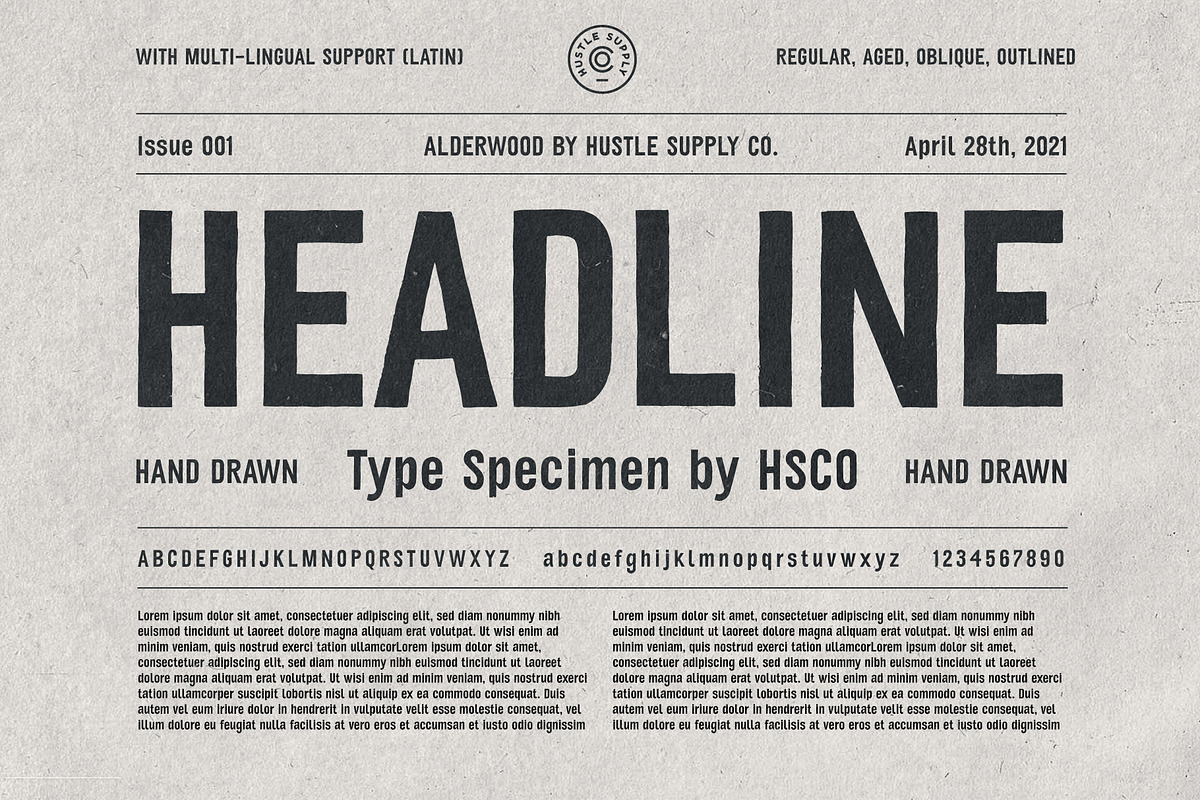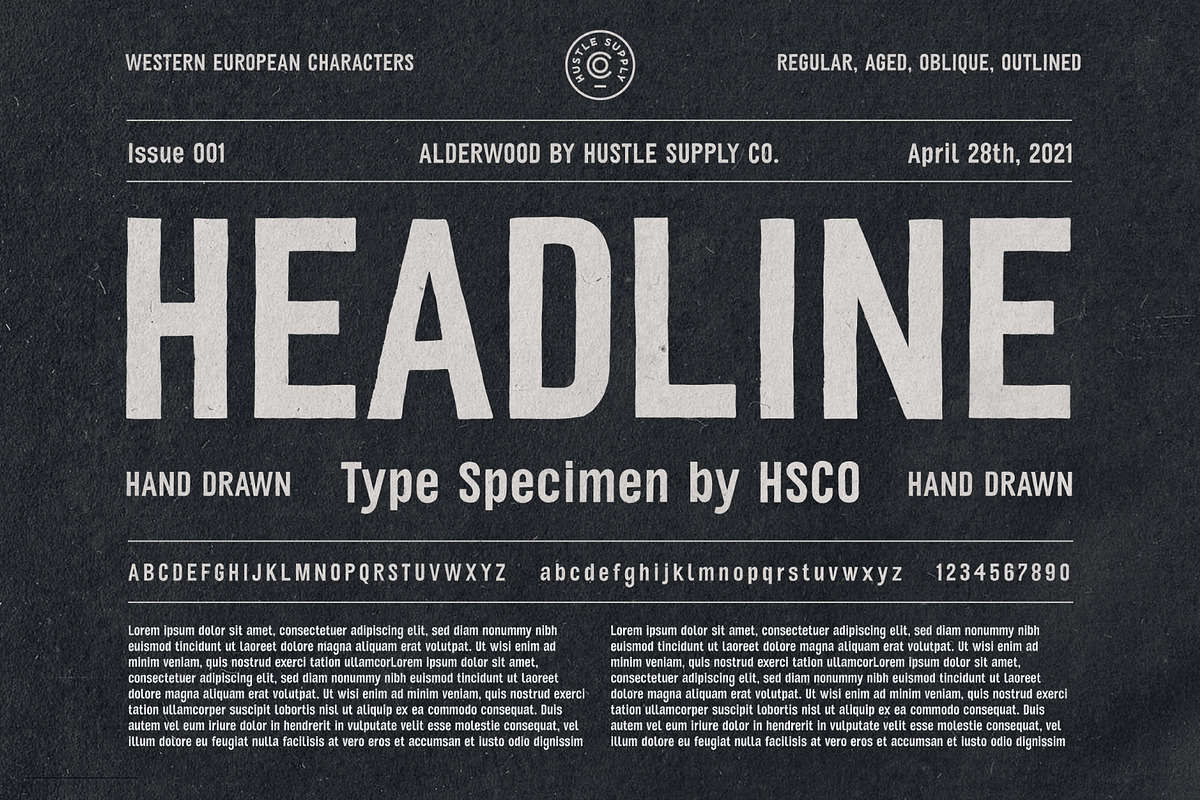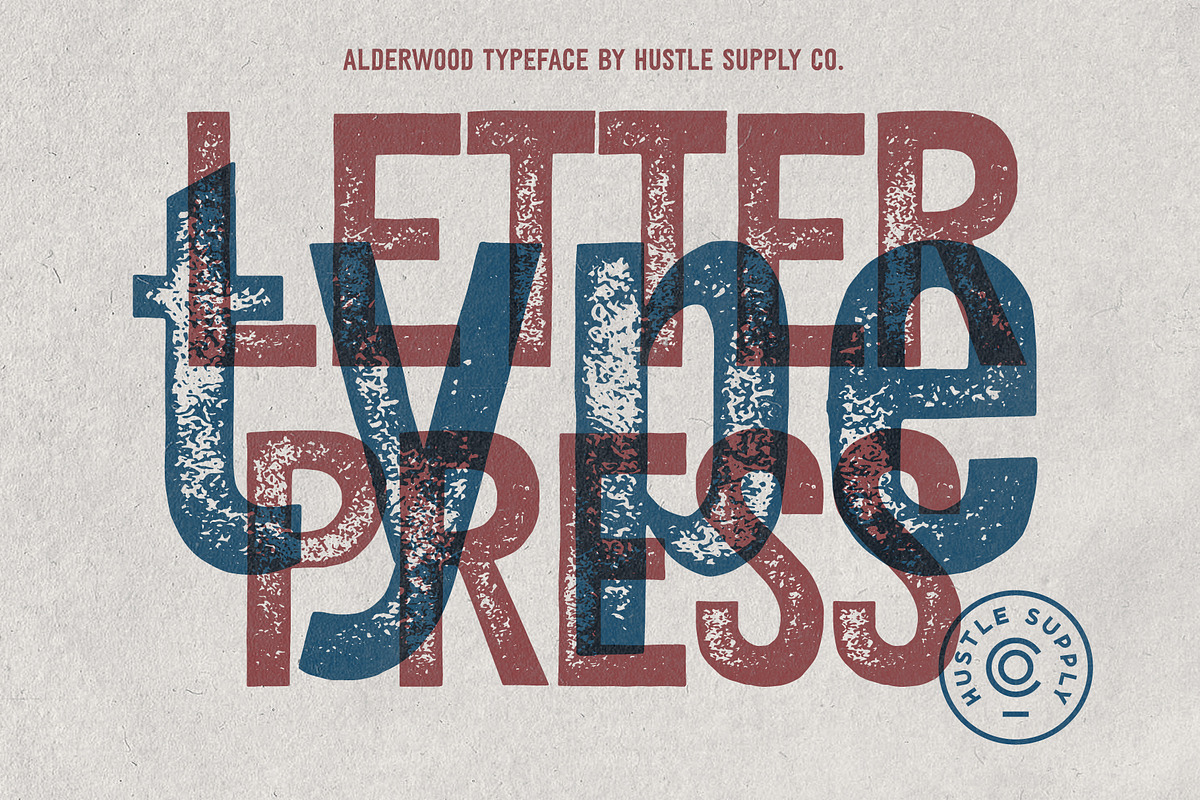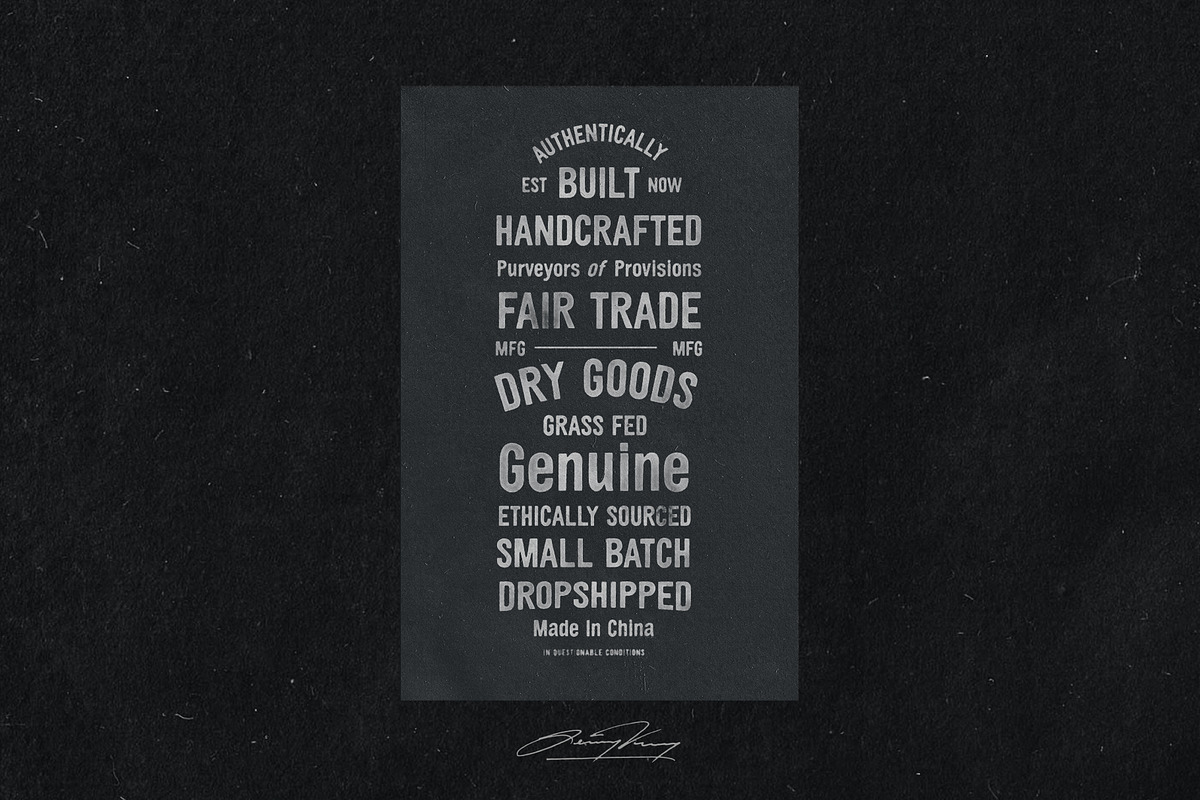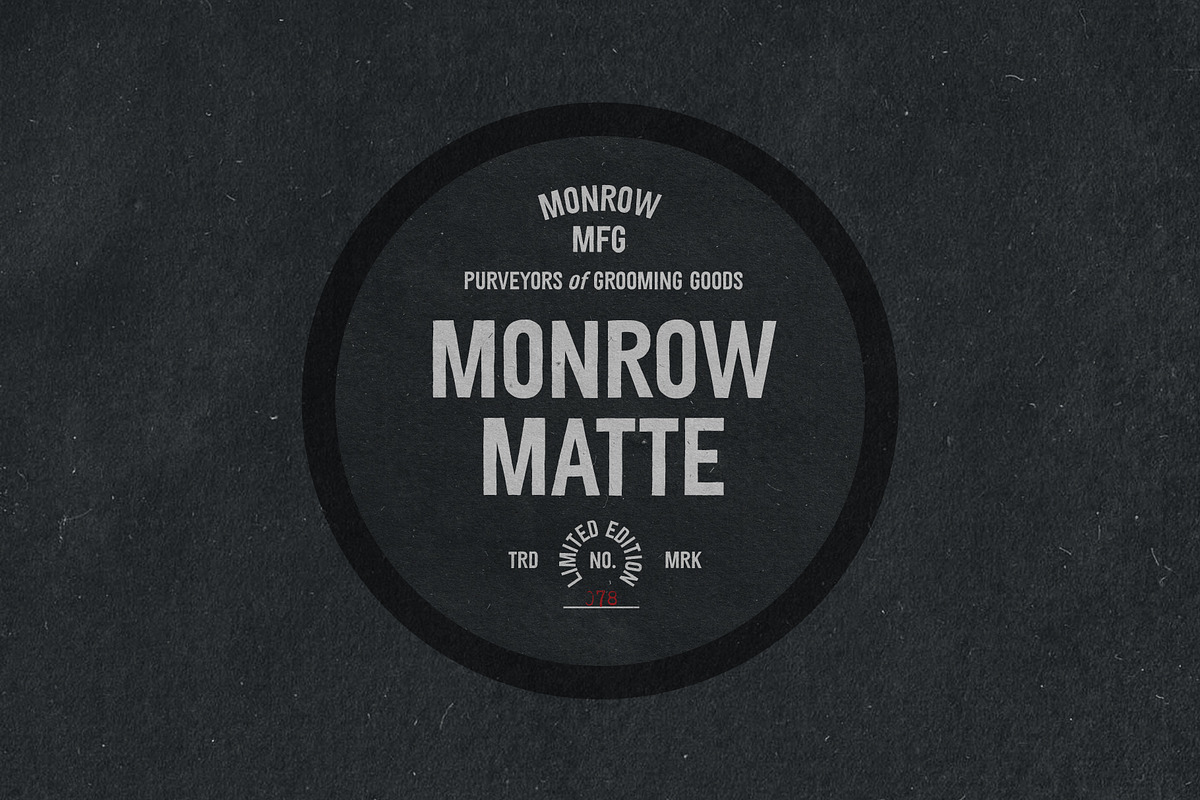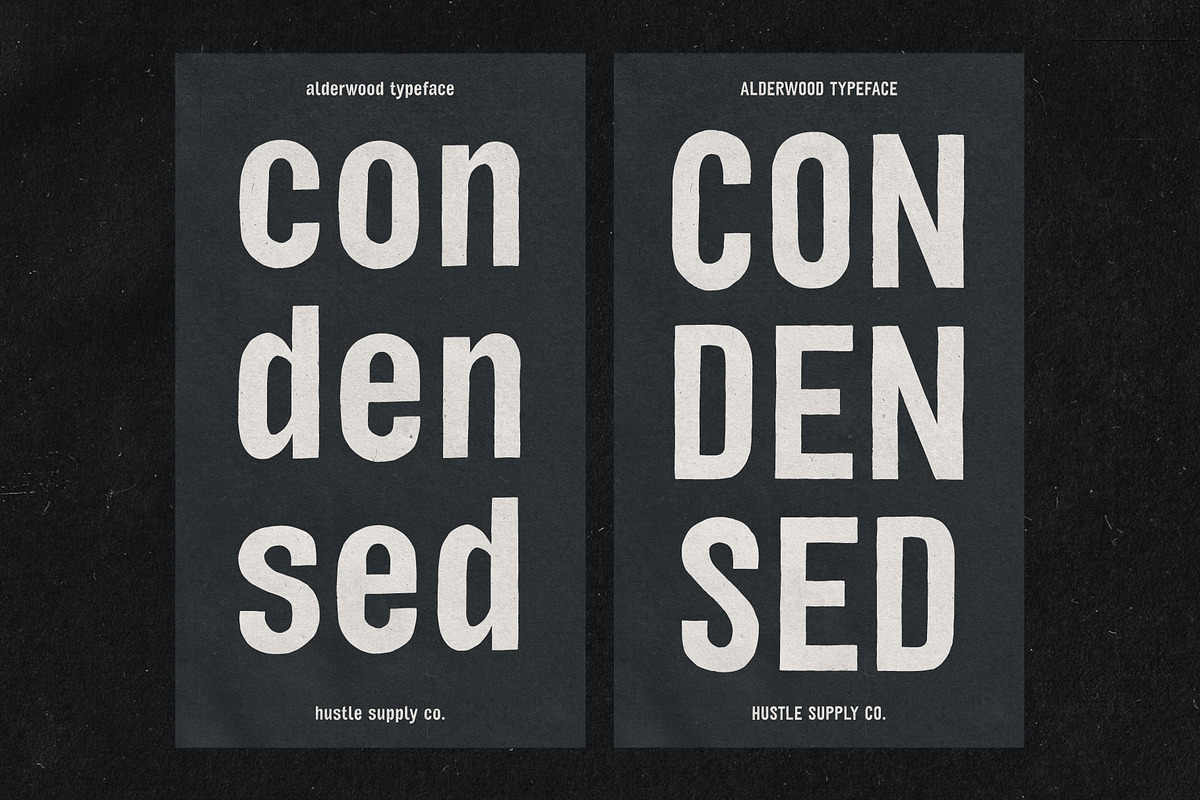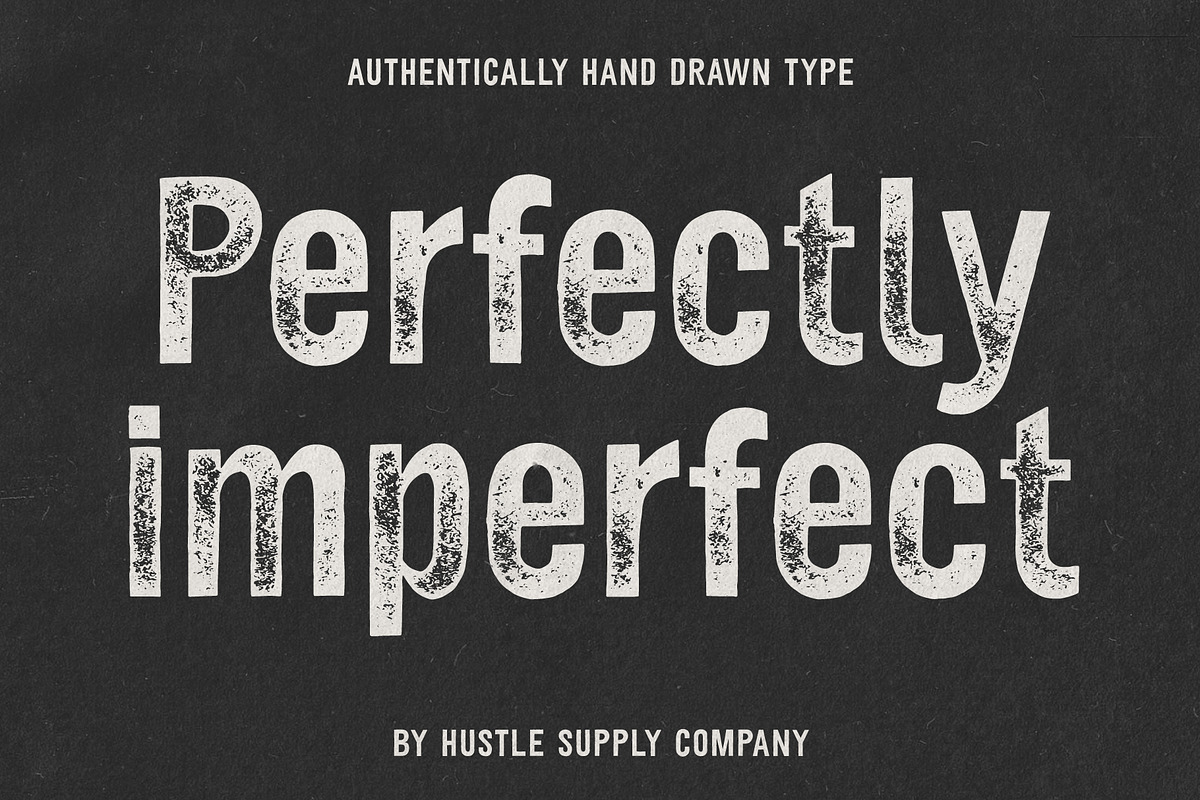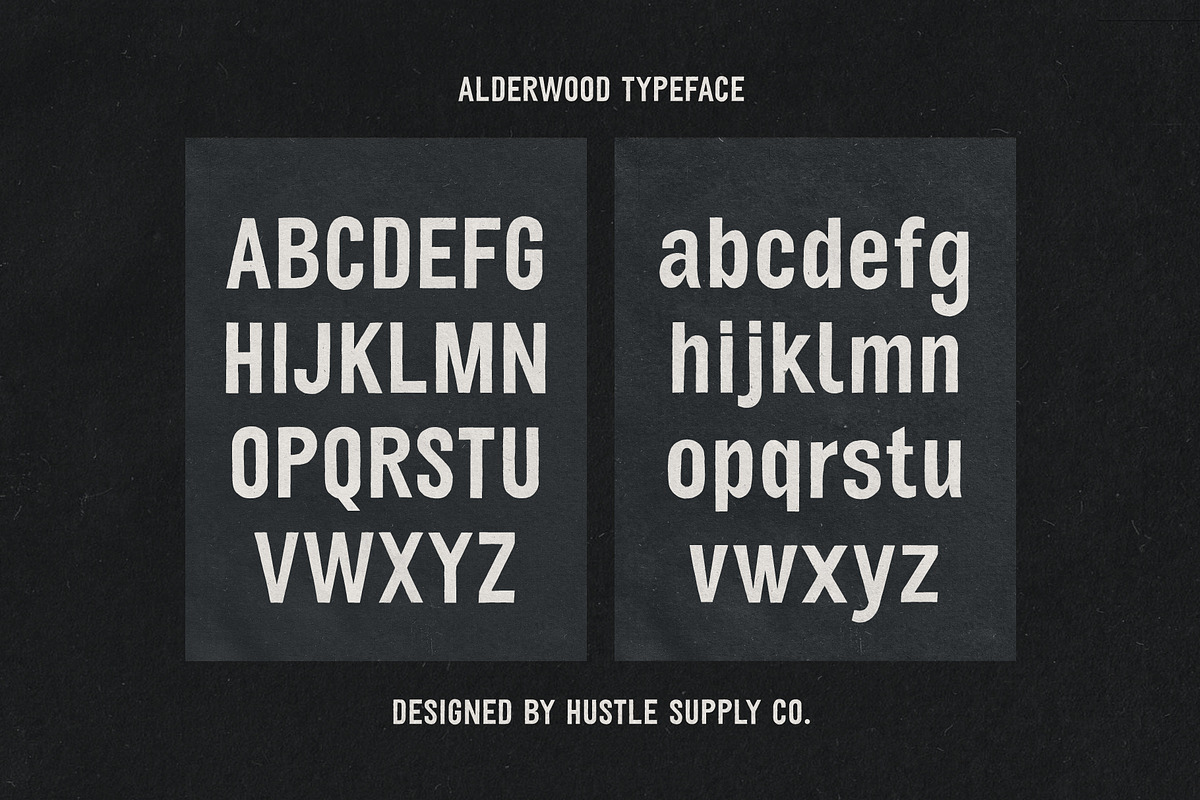
Alderwood
Alderwood | A Condensed Hand Drawn Typeface:
Alderwood is a hand drawn condensed typeface that comes in multiple styles / weights. Get it in regular, stamp, outlined with oblique versions of each. The subtle imperfection of hand drawn type adds character to projects that require a more grassroots vintage aesthetic.